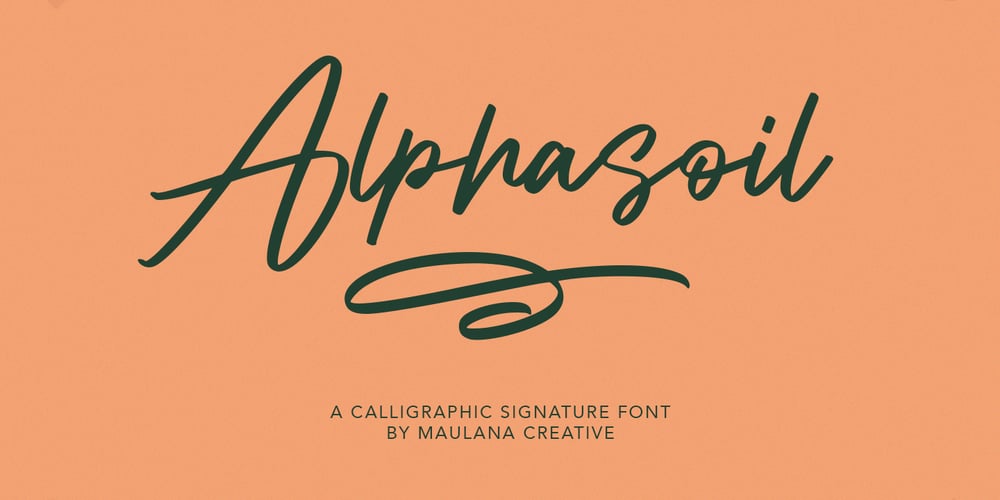
Alphasoil Font Family was designed by Gilang Maulana and published by Maulana Creative. Alphasoil contains 1 styles and family package options. Give your designs an authentic handcrafted feel. “Alphasoil Signature Font” is perfectly suited to signature, stationery, logo, typography quotes, magazine or book cover, website header, clothing, branding, packaging design and more.Thanks for use this font ~ Maulana